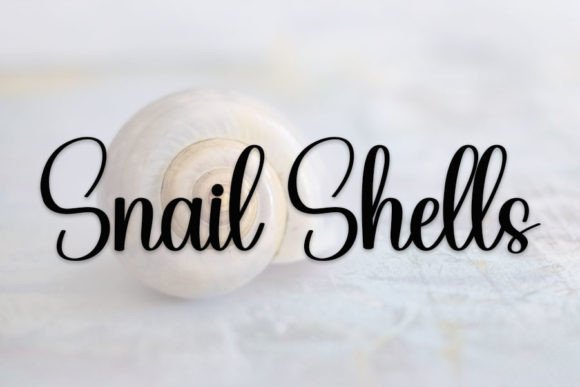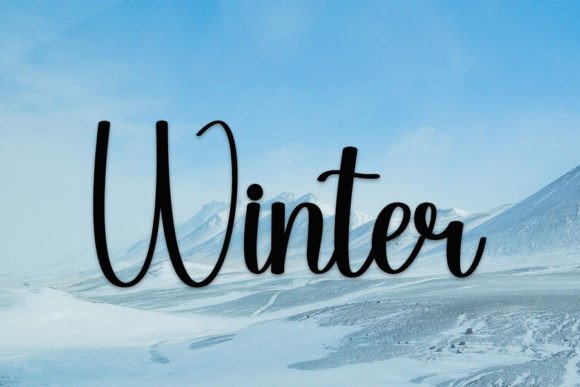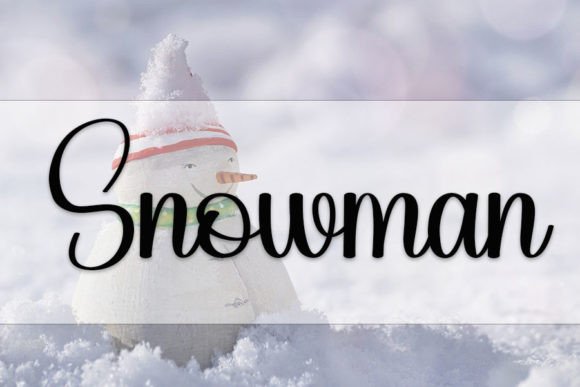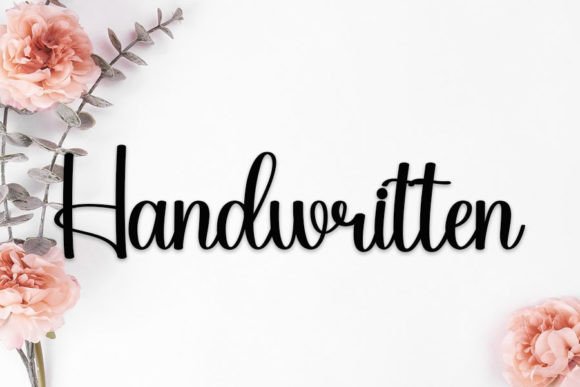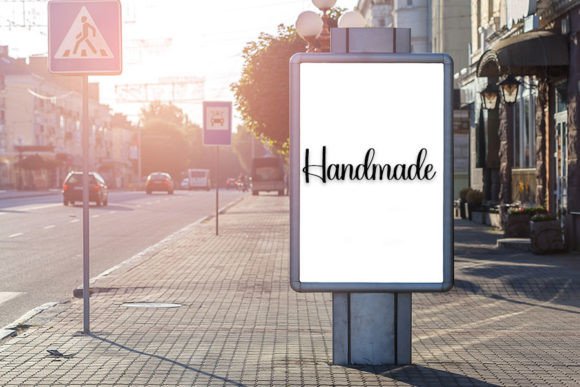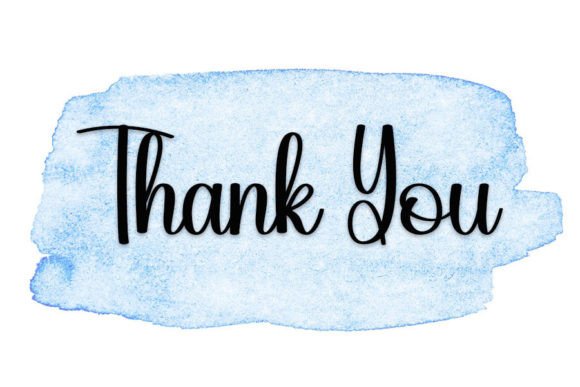
Introducing Belated Font: Elevate Your Designs with Elegance
Are you on the hunt for a font that exudes sophistication and style? Look no further than Belated Font, a stunning handwritten font that is sure to capture your heart. With its elegant touch and timeless design, Belated is perfect for designers and crafters seeking to add a touch of refinement to their projects.
The Beauty of Belated Font
Belated Font is a neat and beautiful handwritten font that boasts an incredibly distinct style. Its elegant touch is perfect for a wide range of projects, from wedding invitations and party decorations to branding and advertising materials. The font’s classic design ensures that it will never go out of style, making it a valuable addition to any designer’s toolkit.
What Makes Belated Font Stand Out?
- Unique and Timeless Style: Belated Font features a unique and timeless style that is sure to set your designs apart from the rest.
- Elegant Touch: The font’s elegant touch adds a touch of sophistication to any project, making it perfect for high-end designs.
- Versatile: Belated Font is versatile and can be used for a wide range of projects, from digital designs to print materials.
- Easy to Read: The font is easy to read, making it perfect for body text and other applications where readability is key.
Belated Font is perfect for designers and crafters who want to add a touch of elegance to their projects. Whether you’re creating wedding invitations, party decorations, or branding materials, this font is sure to impress. Its classic design ensures that it will never go out of style, making it a valuable addition to any designer’s toolkit.
Tips for Getting the Most Out of Belated Font
- Pair it with Other Fonts: Belated Font pairs well with other fonts, making it easy to create stunning combinations.
- Experiment with Different Sizes: The font looks great in a variety of sizes, from large headings to small body text.
- Use it for Branding: Belated Font is perfect for branding materials, such as logos and business cards.
Key Features of Belated Font
| Font Type | Handwritten |
| Style | Elegant and Timeless |
| Use Cases | Wedding Invitations, Party Decorations, Branding Materials, and More |